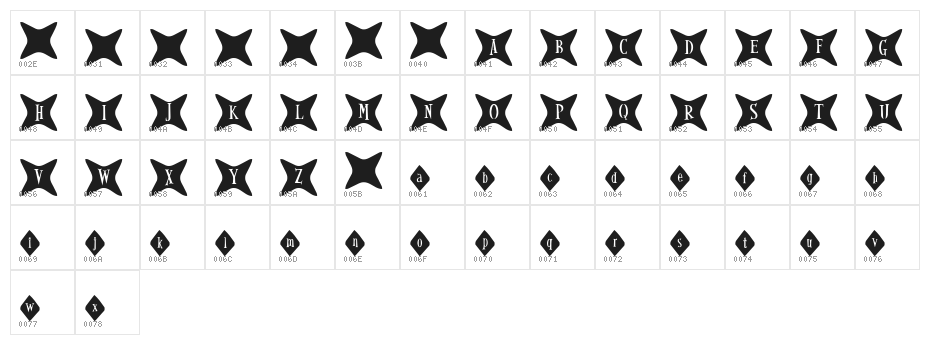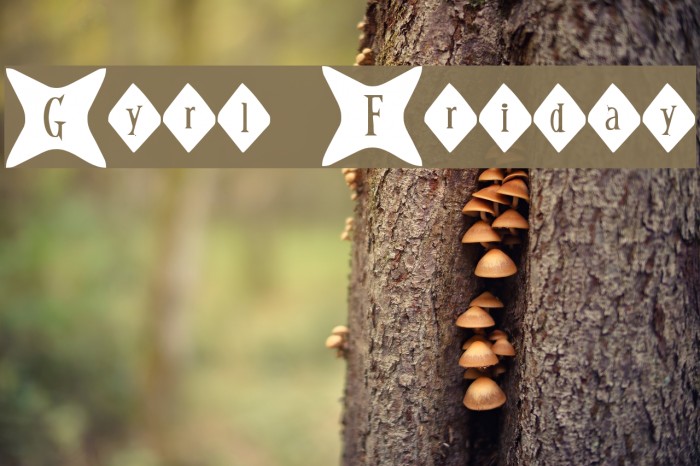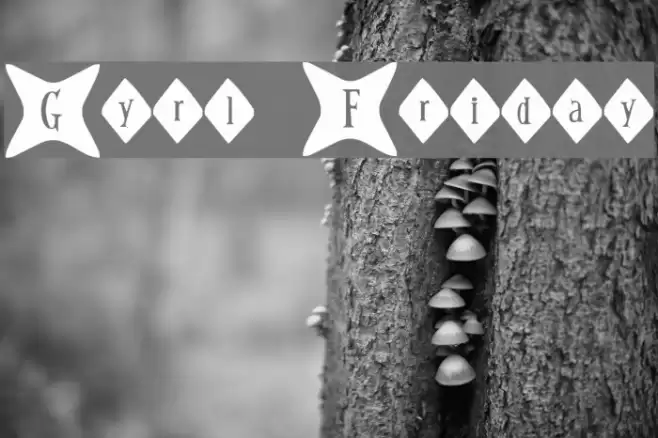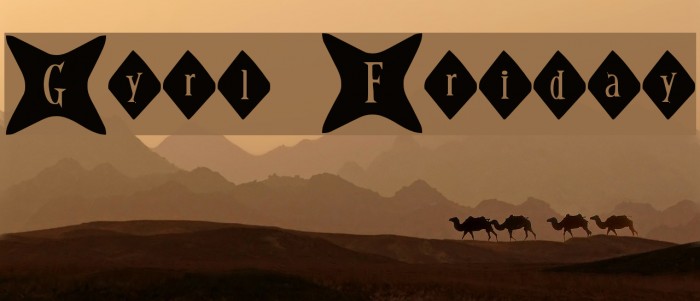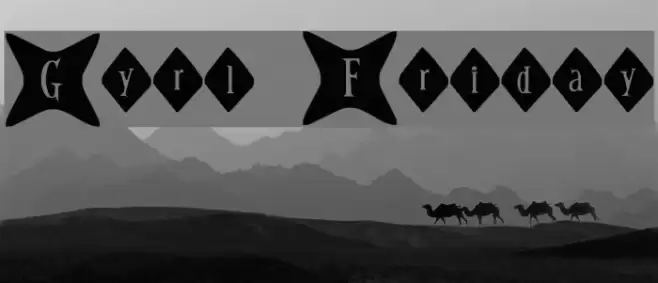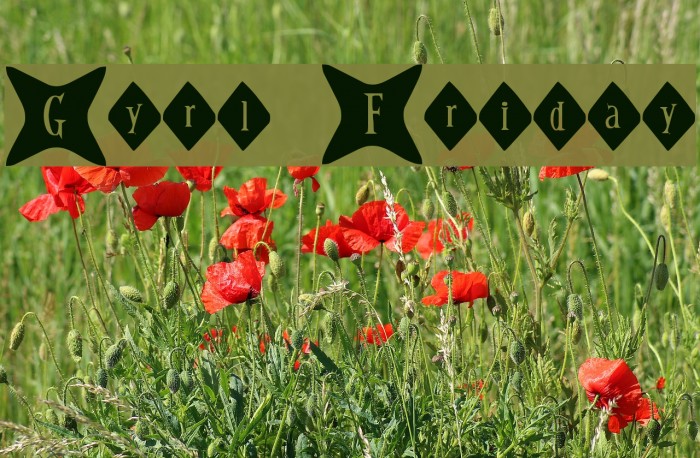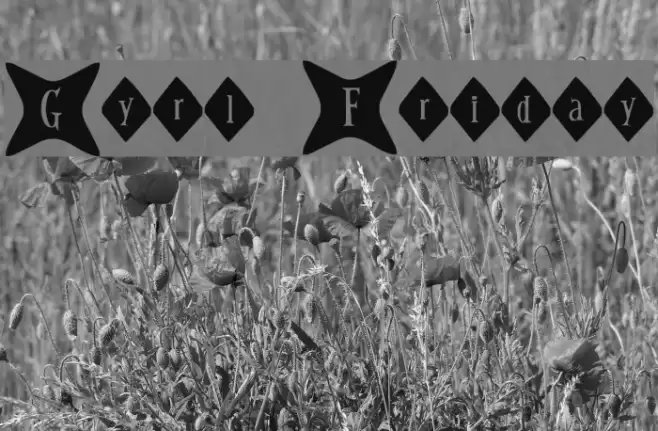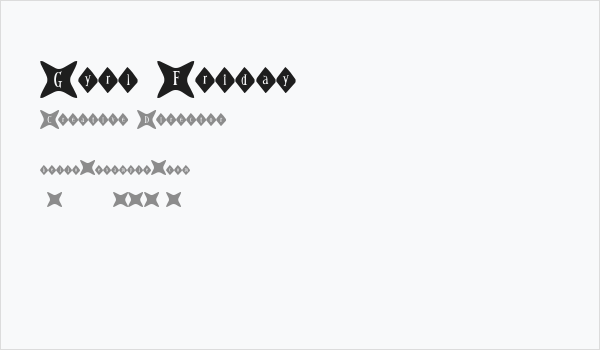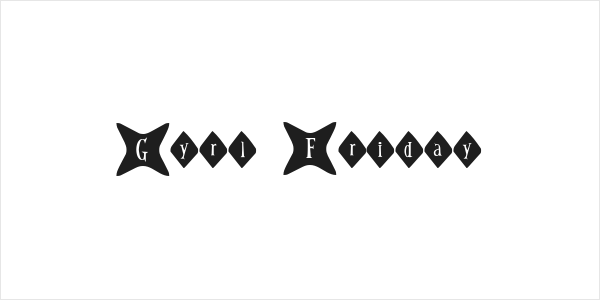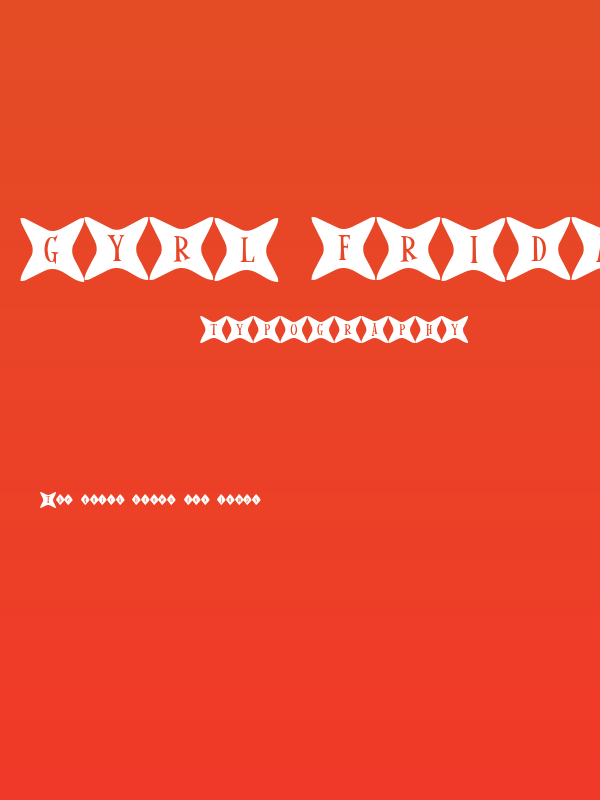
Gyrl Friday Font
Gyrl Friday Description
This font features a unique and decorative style with each character enclosed in a diamond-shaped frame. The letters are bold and have a high contrast between the thick and thin strokes, creating a striking visual impact. The uppercase and lowercase letters maintain a consistent design, with the uppercase being slightly more pronounced. The numbers and special characters follow the same aesthetic, ensuring uniformity across all elements. This font's distinct appearance makes it ideal for creative and artistic projects where a bold statement is desired.
| Proposed Projects | This font is perfect for artistic posters, unique branding, eye-catching headlines, and creative invitations. |